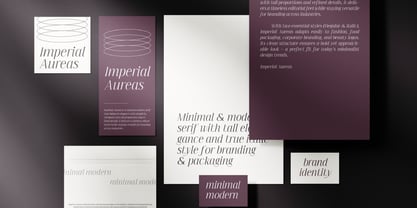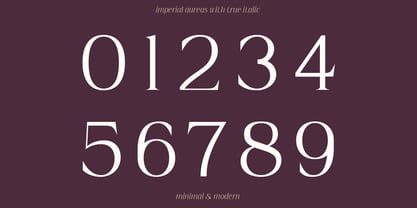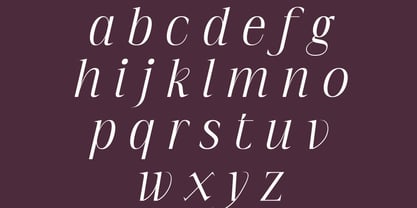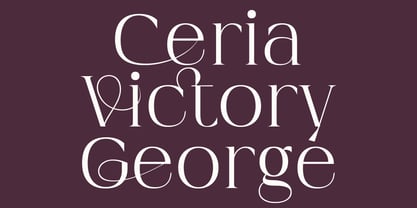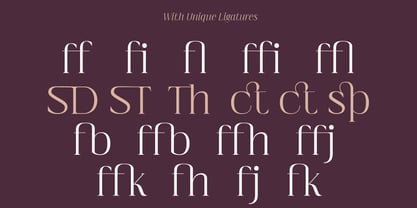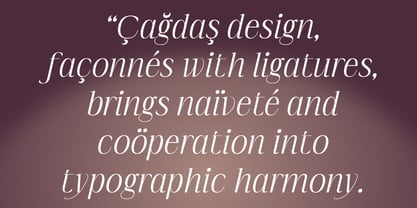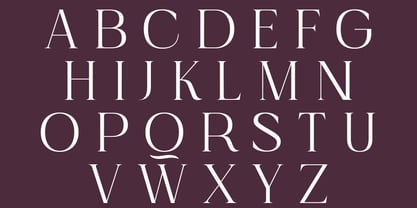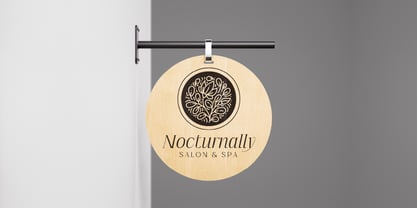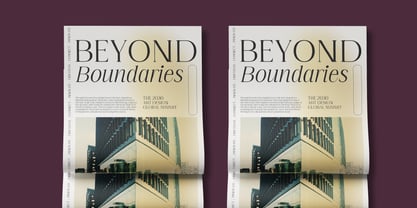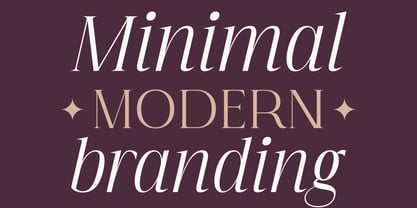
Imperial Aureas
by Lettertype Studio
The Imperial Aureas Font Family was designed by Diki Pradipta Tri Atmojo and published by Lettertype Studio. Imperial Aureas contains 2 styles and family package options. More about this family
Imperial Aureas is a minimal modern serif that balances elegance with simplicity. Designed with tall proportions and refined details, it delivers a timeless editorial feel while staying versatile for branding across industries. With two essential styles (Regular & Italic), Imperial Aureas adapts easily to fashion, food packaging, corporate branding, and beauty logos. Its clean structure ensures a bold yet approachable look — a perfect fit for today’s minimalist design trends.
Designers: Diki Pradipta Tri Atmojo
Foundry: Lettertype Studio